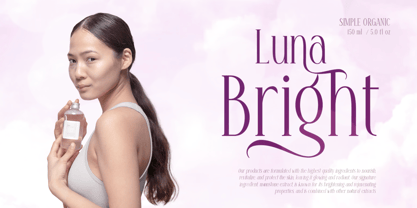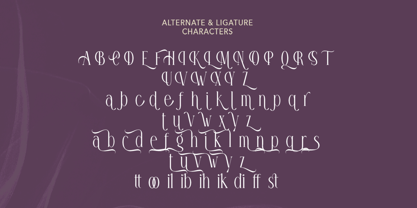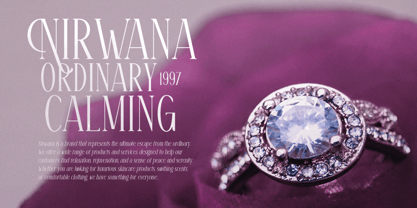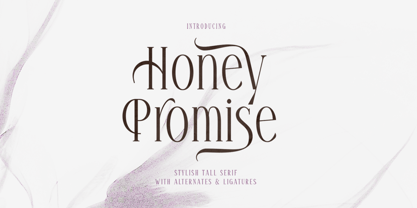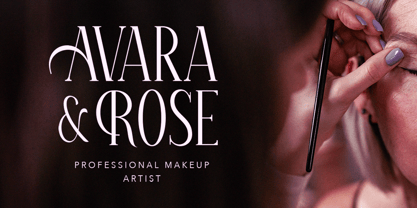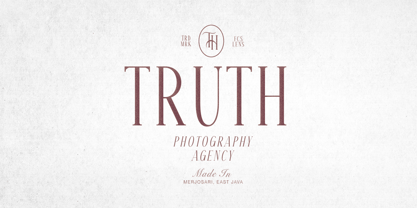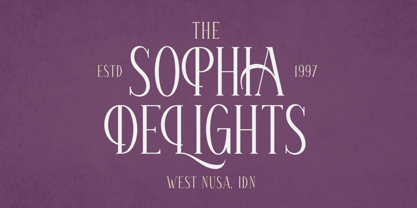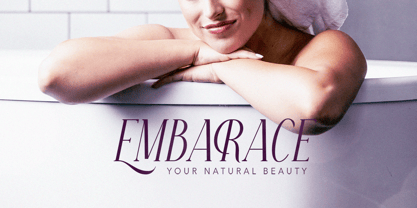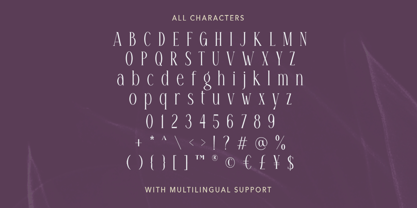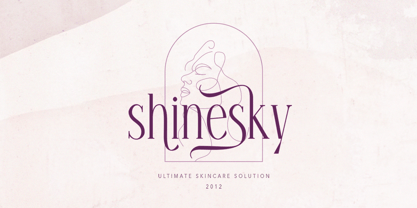
Honey Promise
The Honey Promise Font Family was designed by Sarid Ezra, Dzikrul Aulia and published by Bale Type. Honey Promise contains 2 styles and family package options. More about this family
Honey Promise is a stylish tall serif with alternates and ligatures. This font is suitable for your beautiful brand that required simple and elegant looks. You can use this font for any purposes, such as logotype, branding, wedding invitations, and quotes. With ligatures and alternates, this font will make your designs more chic and stunning! Honey Promise is also support multi language!